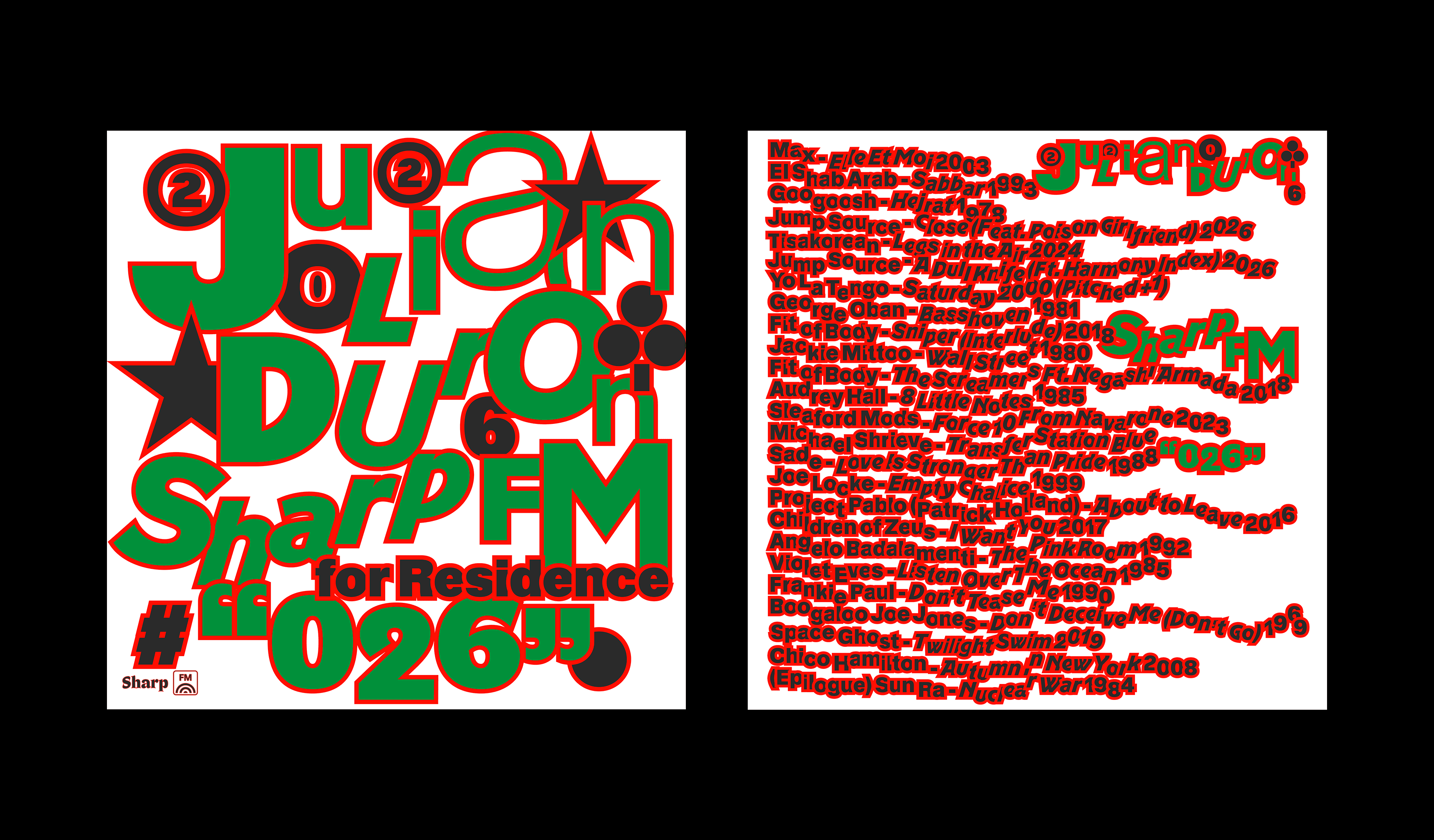
For our second mix of 2026, the stars finally aligned, good fortune smiled, and destiny opened a door. We’d been talking intermittently with our friend Julian Duron about making a mix for a while, and thankfully we finally convinced him to take some time out of his busy schedule to make us something special.
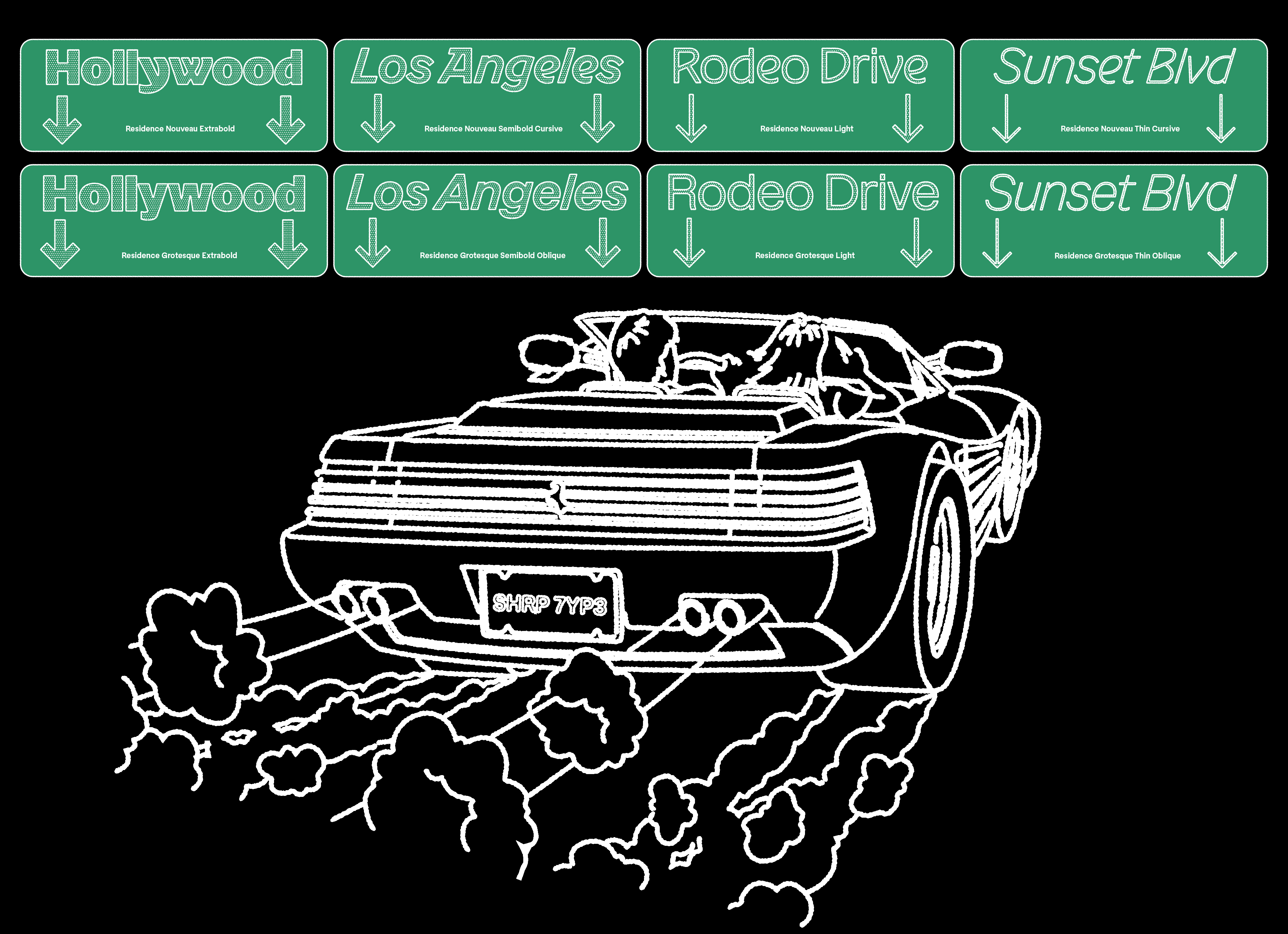
For the cover and tracklist, we used Residence, our latest typeface release designed by Kia Tasbihgou. Here, the stylistic differences of Residence’s Nouveau and Grotesque subfamilies are both highlighted and harmonized in a positively joyous riot of typography in loving homage to Julian’s unique graphic sense and sensibility.
“The theme of this mix is ‘Songs that always get stuck in my head every time I hear them,’ or ‘Those tracks that give you chills when you hear the first notes.’ I wanted to make a mix that works well in any design or creative environment—mostly chill, but also upbeat enough to not put you to sleep,” says Julian. After 19 years in New York, Julian moved to LA, where he currently resides, to expand his freelance creative practice and continue making records.
Our goal with Sharp FM in 2026 is to highlight creatives who have a specific musical and visual point of view, and there aren’t many designers who can do it all like Julian. As a multidisciplinary creative and musician whose work spans brand design, video, photo, sound design, and music production, he has worked with global brands such as Nike, Jordan, Apple and Levis among many others over the years. He is best known, however, for his iconic poster designs which feature dynamic typography and graphic design that communicate with a distinctive panache. We love seeing Sharp Type’s fonts featured regularly in his work.
Julian is also a founding member of Earth Boys, whose catalogue includes four full length LPs and a dozen EPs. “With my Earth Boys, we're usually spinning classic house music or Balearic jams, so this mix for Sharp Type was an opportunity to do something different, something special for Sharp Type. It’s in line with what I'm normally listening to while working — it's either music like this or 88.1 KJAZZ.”